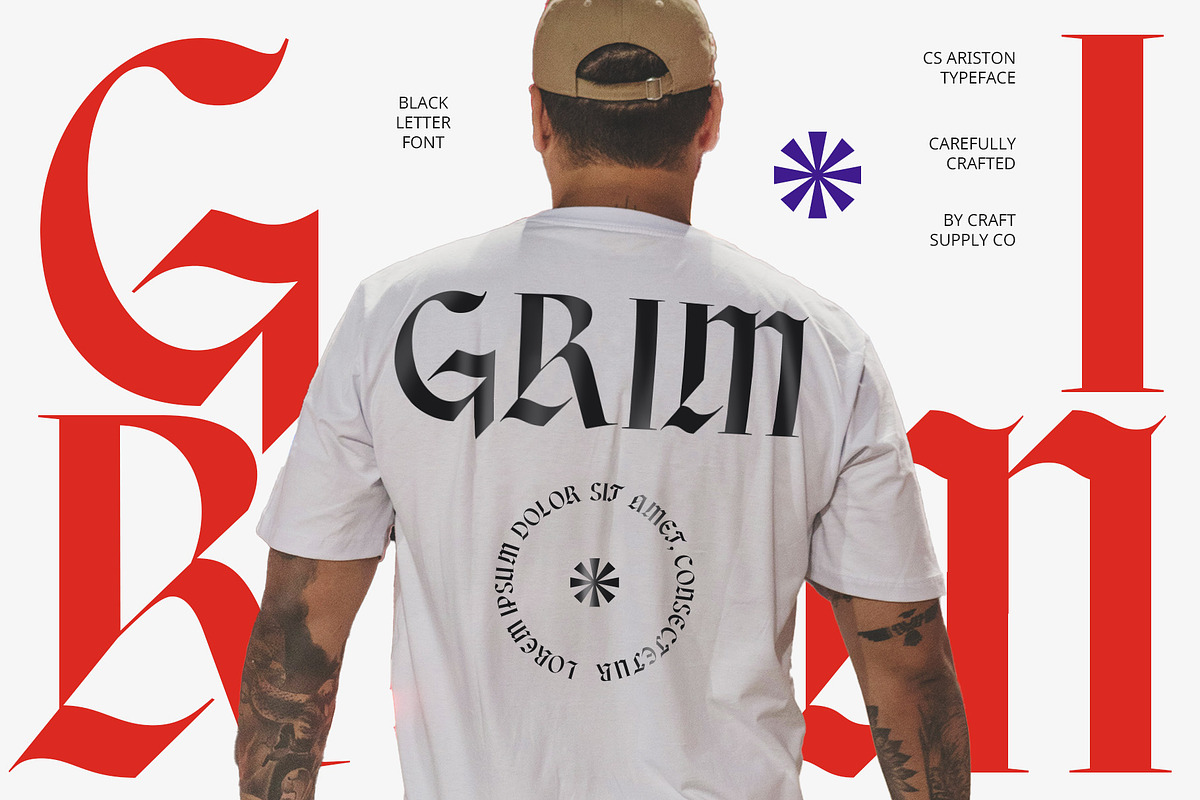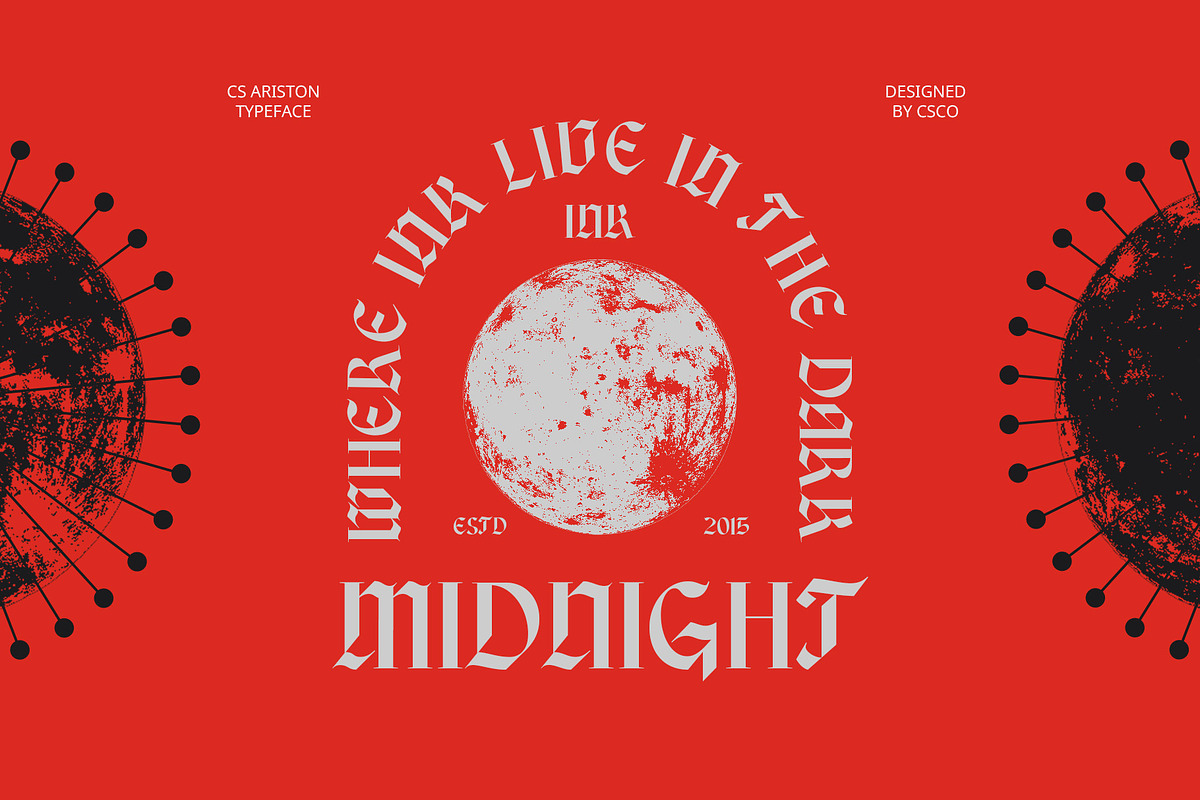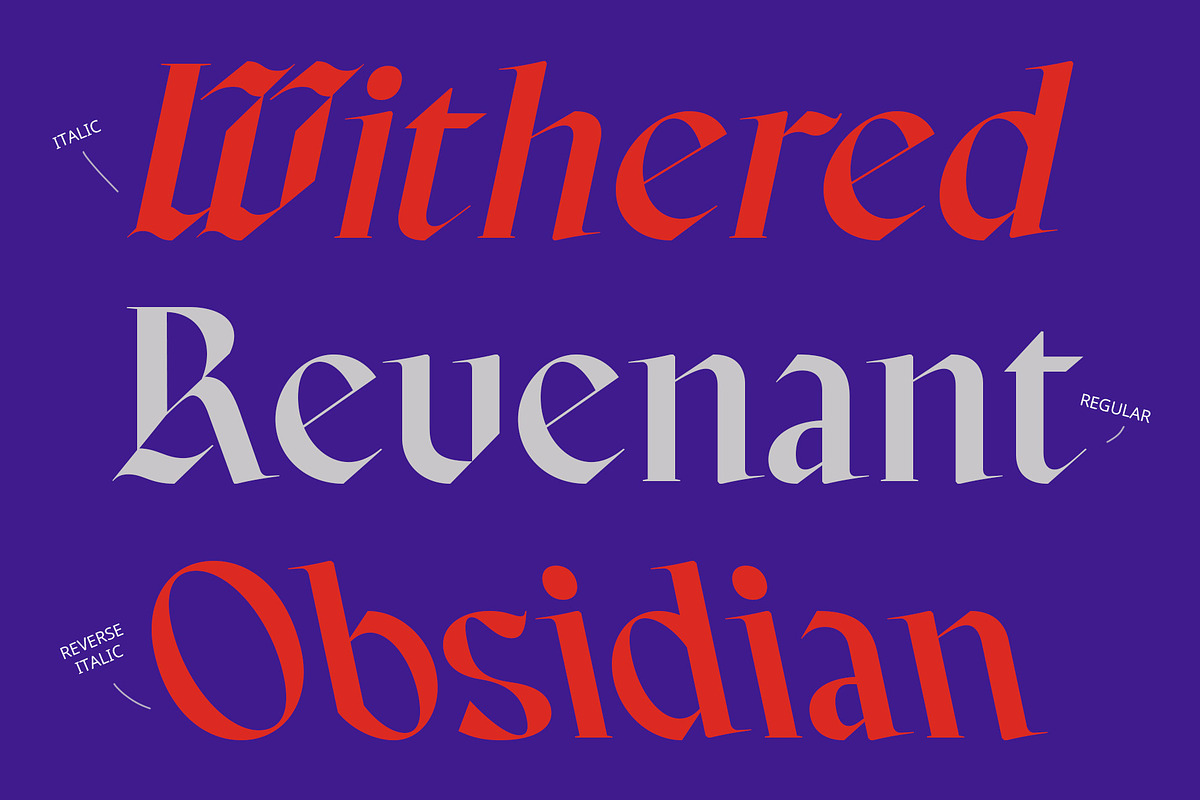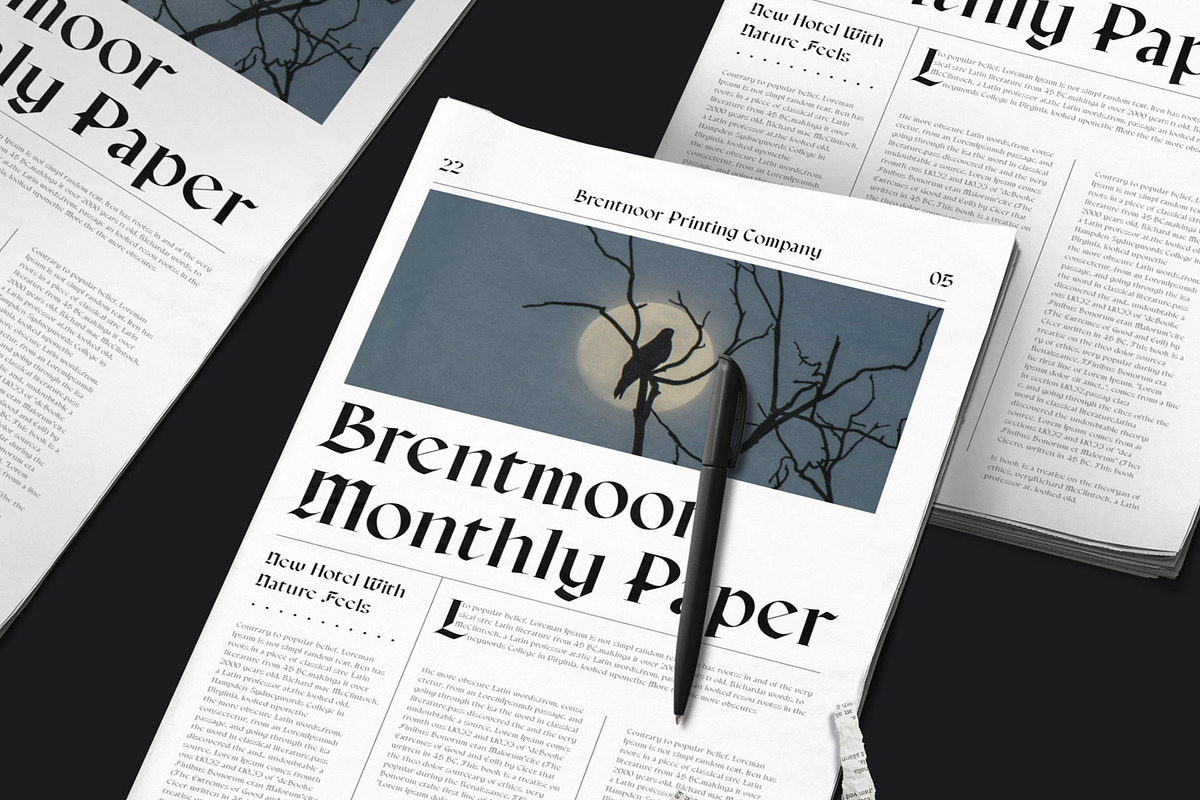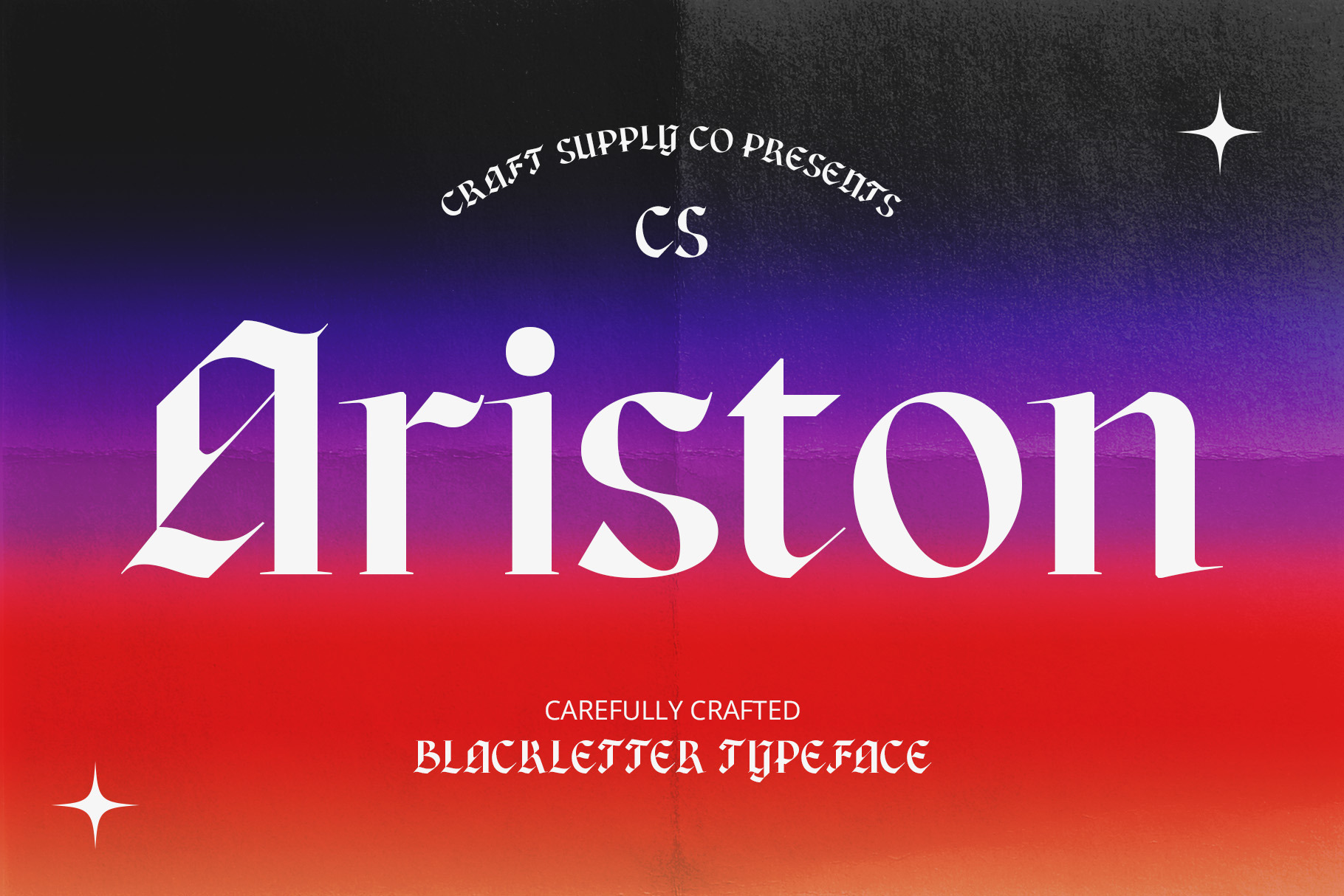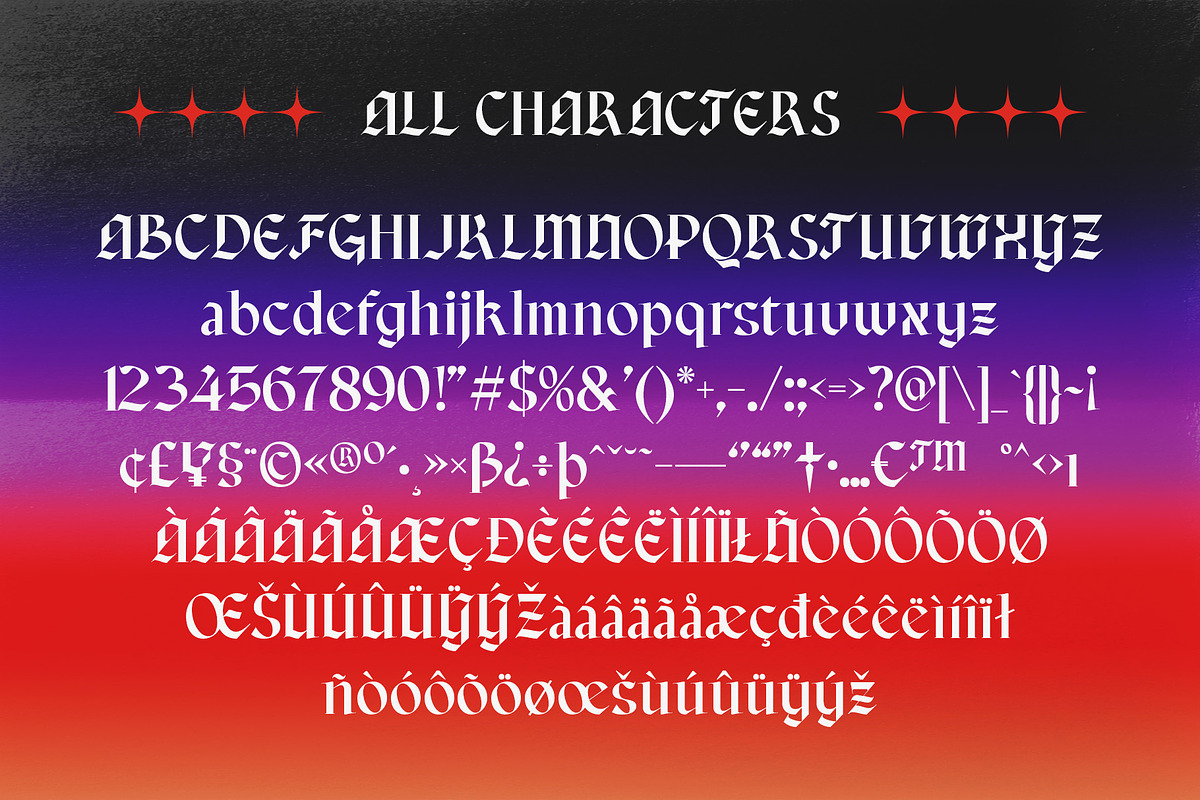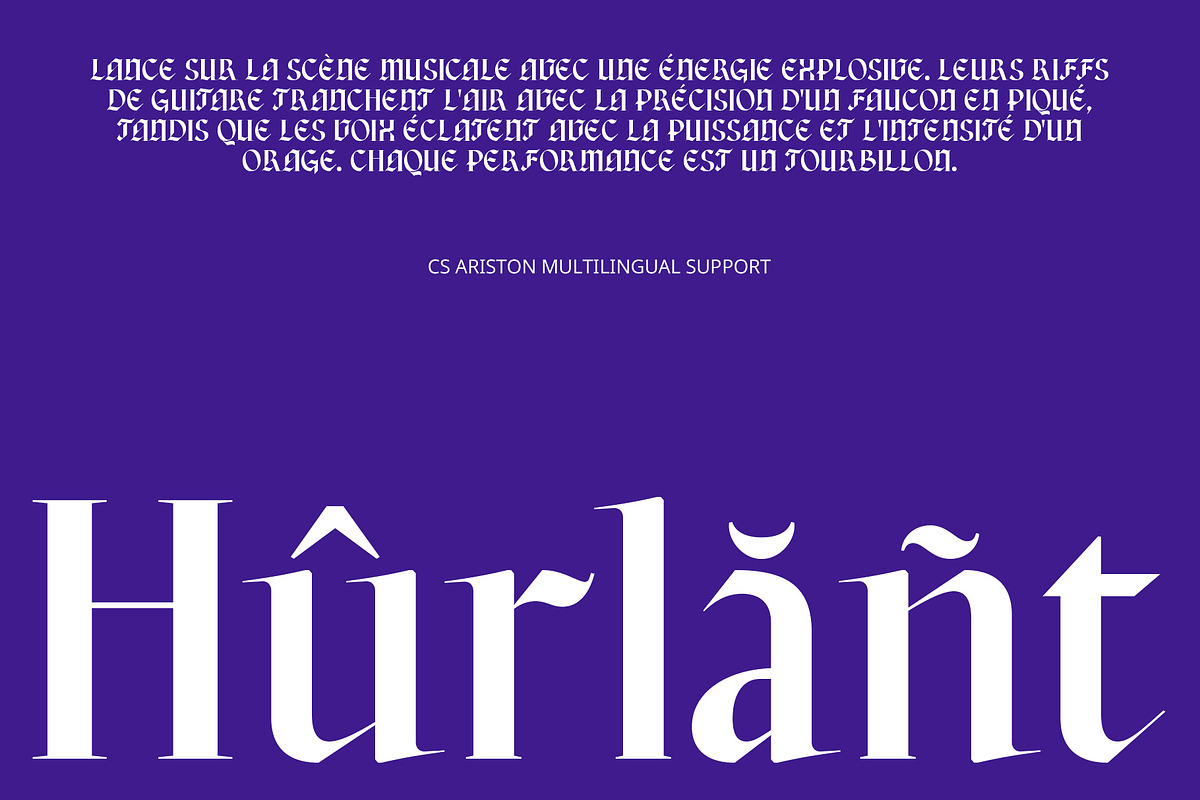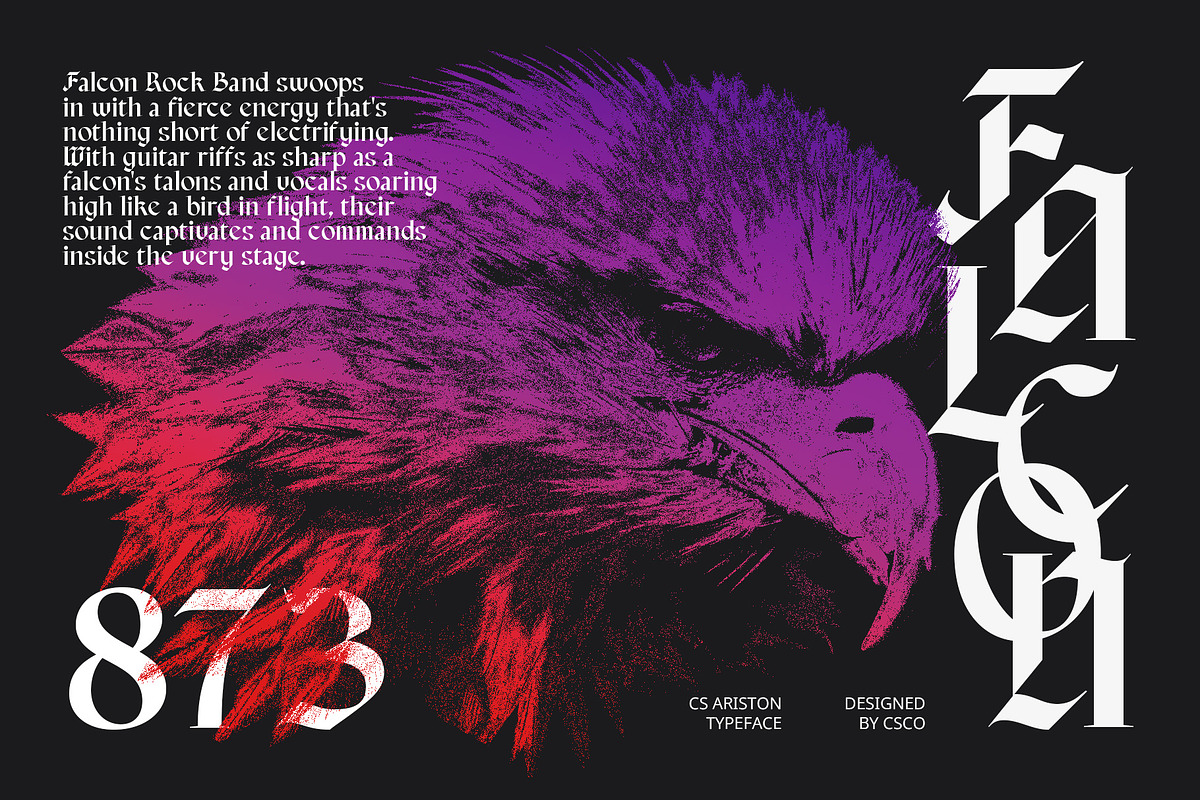
CS Ariston – Blackletter Font
CS Ariston – Blackletter Font: Where Tradition Meets Bold Elegance
Classic Blackletter Serif CS Ariston is a display serif font that embodies the timeless elegance of Blackletter style. With intricate, traditional letterforms and bold, dramatic lines, this font offers a strong visual impact, perfect for designs that require a sense of historical grandeur.
Bold Lines for Dramatic Impact Featuring bold and striking lines, CS Ariston adds a powerful and authoritative presence to your designs. The combination of intricate details and robust letterforms creates a dramatic effect, making it ideal for luxury branding, formal invitations, and more.
Historical Elegance CS Ariston evokes a sense of historical elegance and authority, making it the perfect choice for projects with a gothic or medieval theme. Its classic Blackletter style ensures that your designs stand out with a distinguished and sophisticated look.
Ideal for Themed Projects Whether you’re working on luxury branding, formal invitations, or themed projects, CS Ariston provides the perfect blend of tradition and boldness. Its unique Blackletter style enhances the visual appeal of any design, adding a touch of classic sophistication and strong presence.
- CS Ariston Regular
- CS Ariston Italic
- CS Ariston Reverse Italic